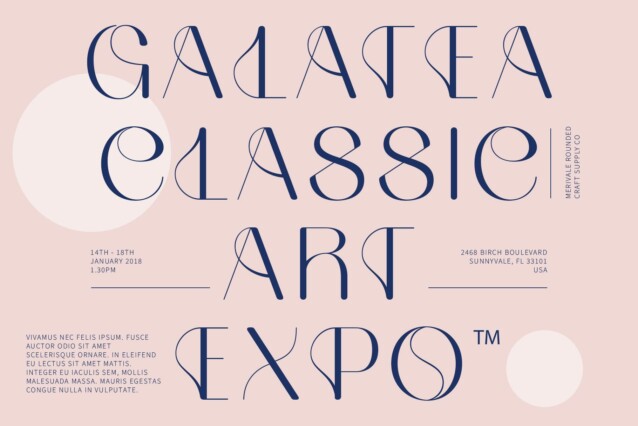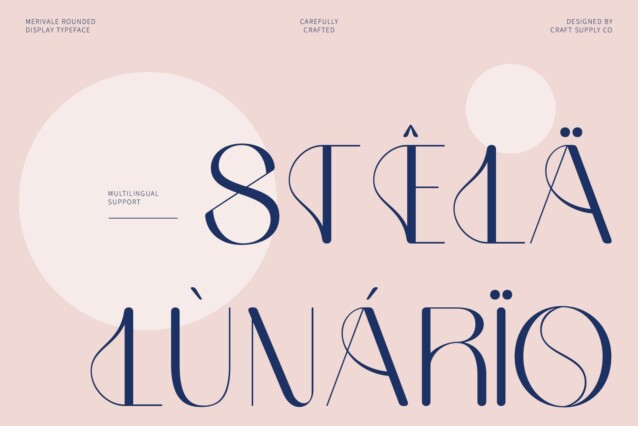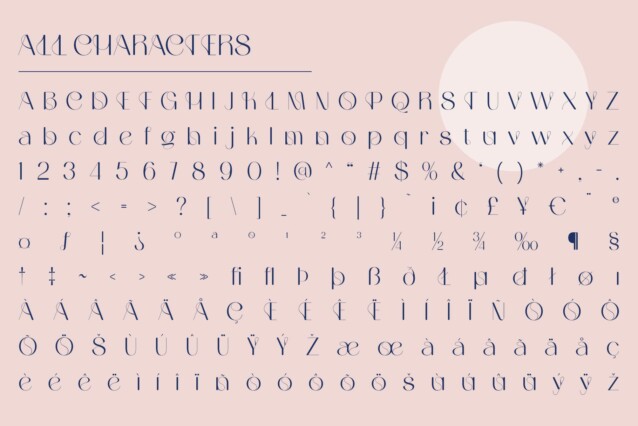
Merivale Rounded Font
Merivale Rounded Font is a modern sans serif display font that beautifully embodies the elegance of Art Nouveau with its rounded shapes and graceful design. Featuring smooth, curved lines complemented by nature-inspired ornaments, this font exudes sophistication and charm. Its refined aesthetic makes it an ideal choice for projects that require an artistic flair, ensuring that your designs leave a lasting impression.